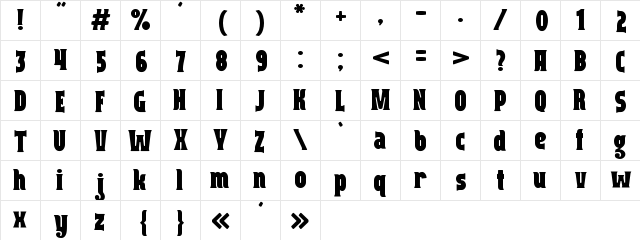
Capitalist Regular
Design Context for Capitalist Typeface
Capitalist offers clean, dependable letterforms without strong stylistic allegiance, making it a practical choice for designers who need flexibility.
Pro Tip: Use Capitalist in both headline and body roles to test its range before committing to a single application.